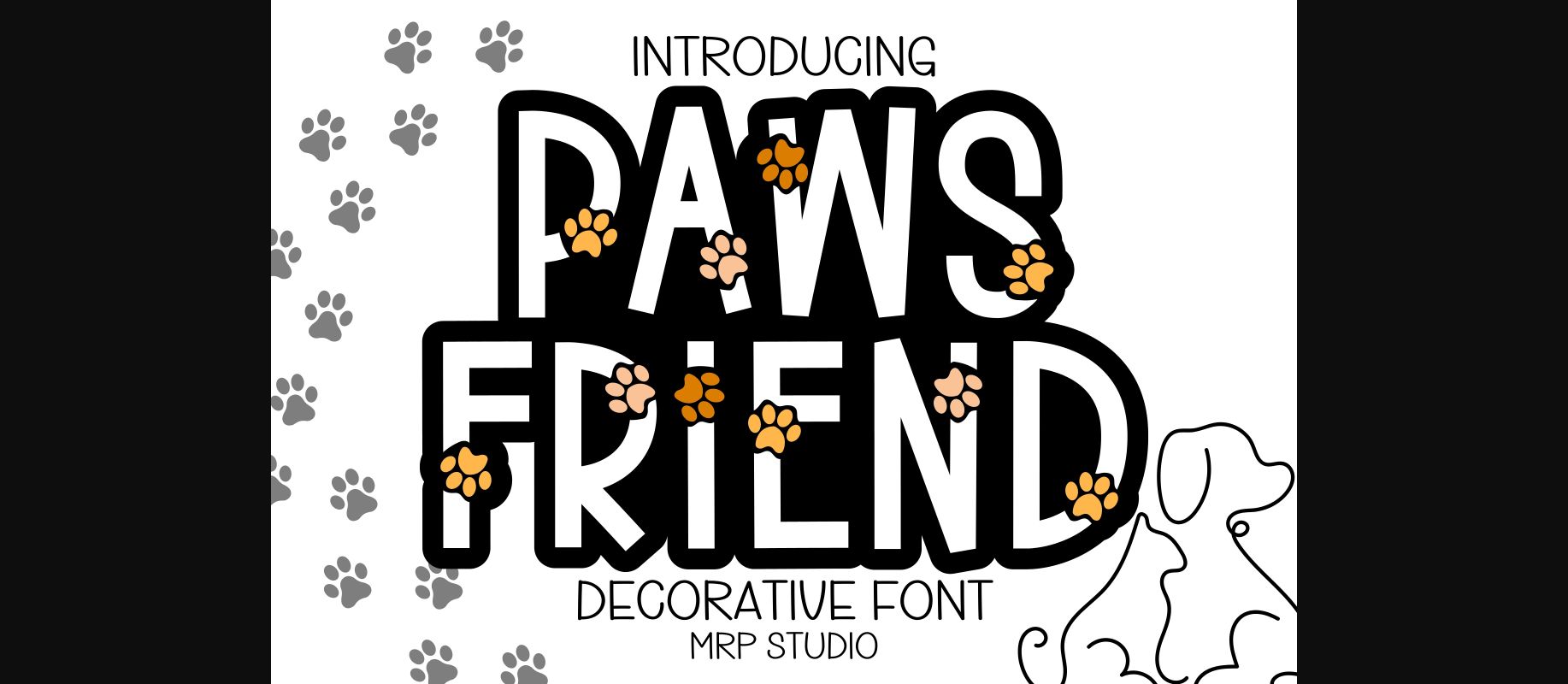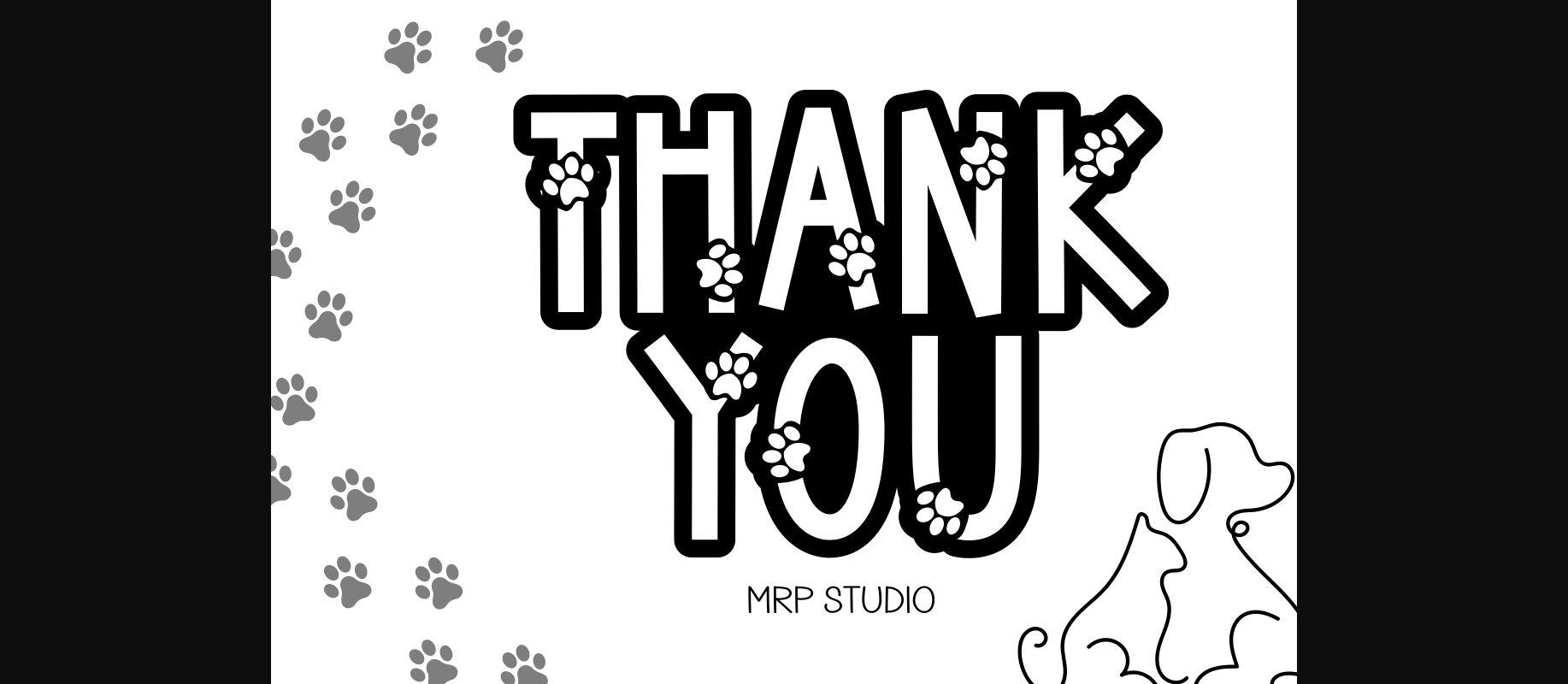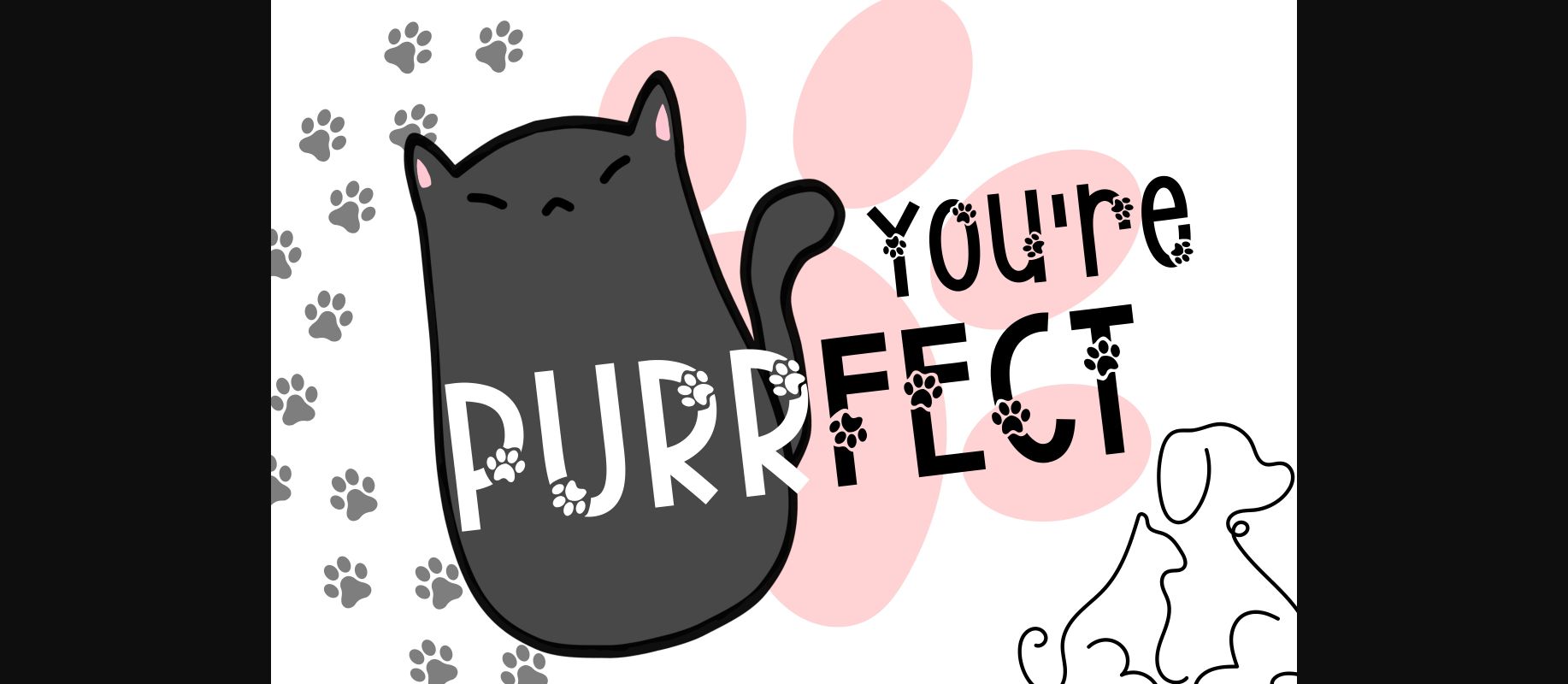
About Paws Friend Font
Paws Friend is designed in a cute and adorable decorative font style. It would be awesome to your lovely perfect and also your child-related project such as back to school, birthday party decoration, dog, cat and much more to any topic which need bright and fun touch. Let’s try it and add it to your creative ideas and notice how it makes them stand out!